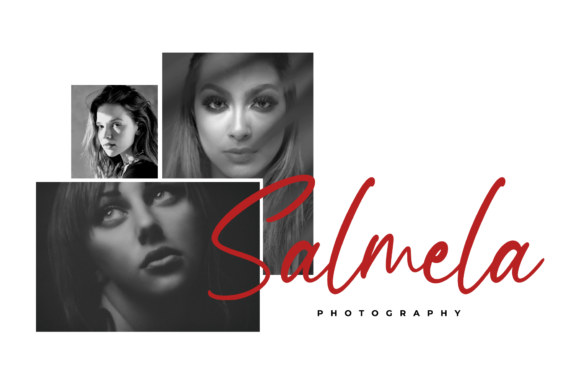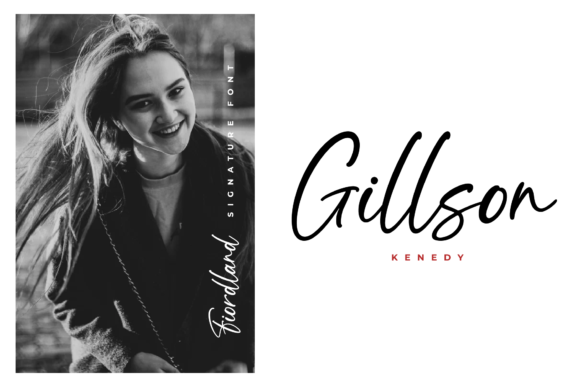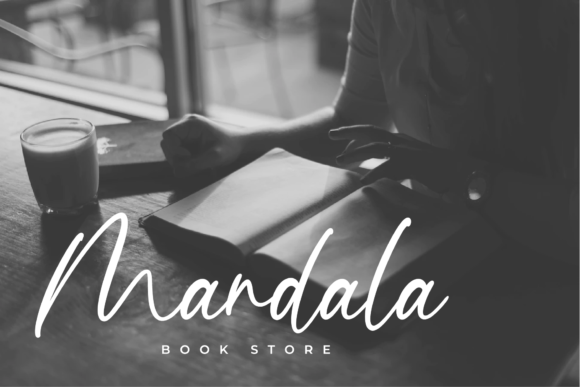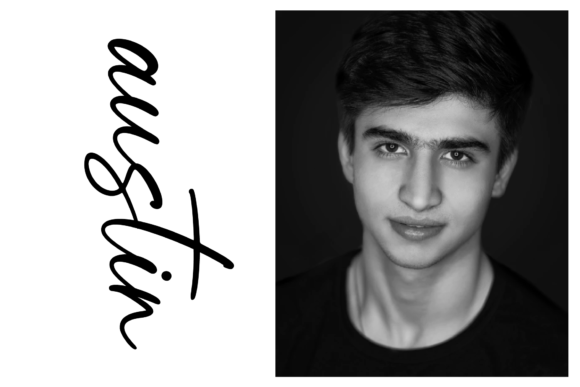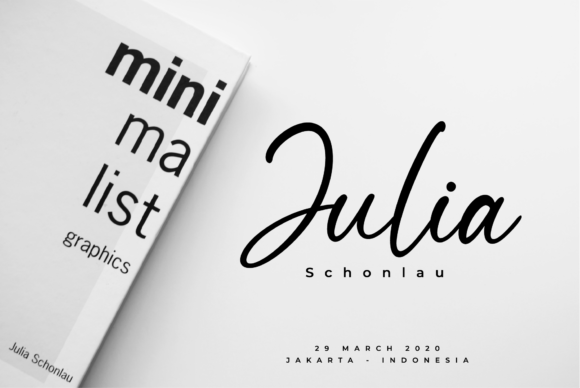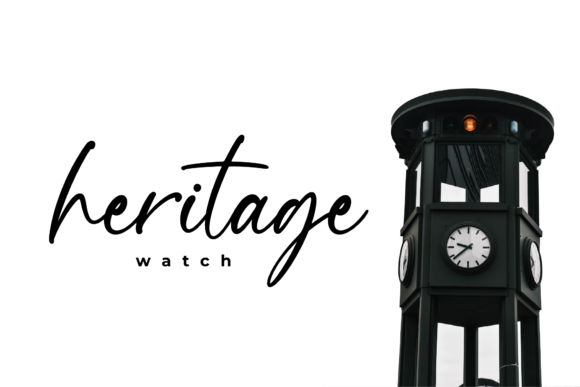
Introduction to Fiordland Font Font
Fonts play a crucial role in design, and the Fiordland Font font is a typeface that brings both character and versatility to any project. Whether you’re working on a branding project, a website, or a print design, the Fiordland Font font offers a unique style that can elevate your work.
Fiordland is a unique and wonderful script with an authentic twist.
Fall in love with its dynamic charm .
Key Features of Fiordland Font Font
Why Choose Fiordland Font Font?
The Fiordland Font font is more than just a typeface – it’s a design tool that helps you communicate your message with style and clarity. Its unique character set and versatile design make it suitable for a wide range of applications, from elegant invitations to bold headlines.
With its carefully crafted letterforms and balanced proportions, the Fiordland Font font ensures readability and visual appeal across all mediums.
What makes Fiordland Font font special?
The Fiordland Font font stands out with its unique design, exceptional readability, and versatility across various design applications.